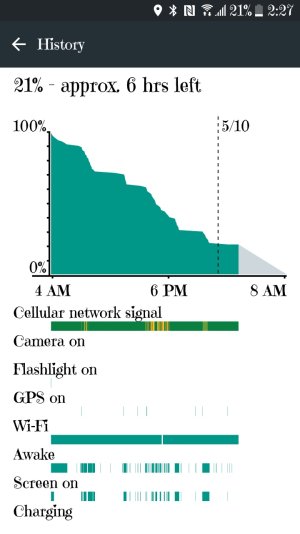
Fonts (HTC theme)
What fonts you guys use? I'm looking for something similar to Helvetica or San Francisco, but it's not available. Coming from iOS it's easy on the eyes for reading. Thanks
I don't have a helpful recommendation but since this will inevitably turn into a thread about fonts; I use Emily's Candy (see below). It's childish and difficult to read at times, but so am I, so we get along just fine.